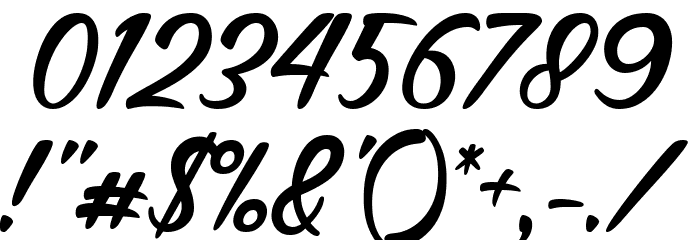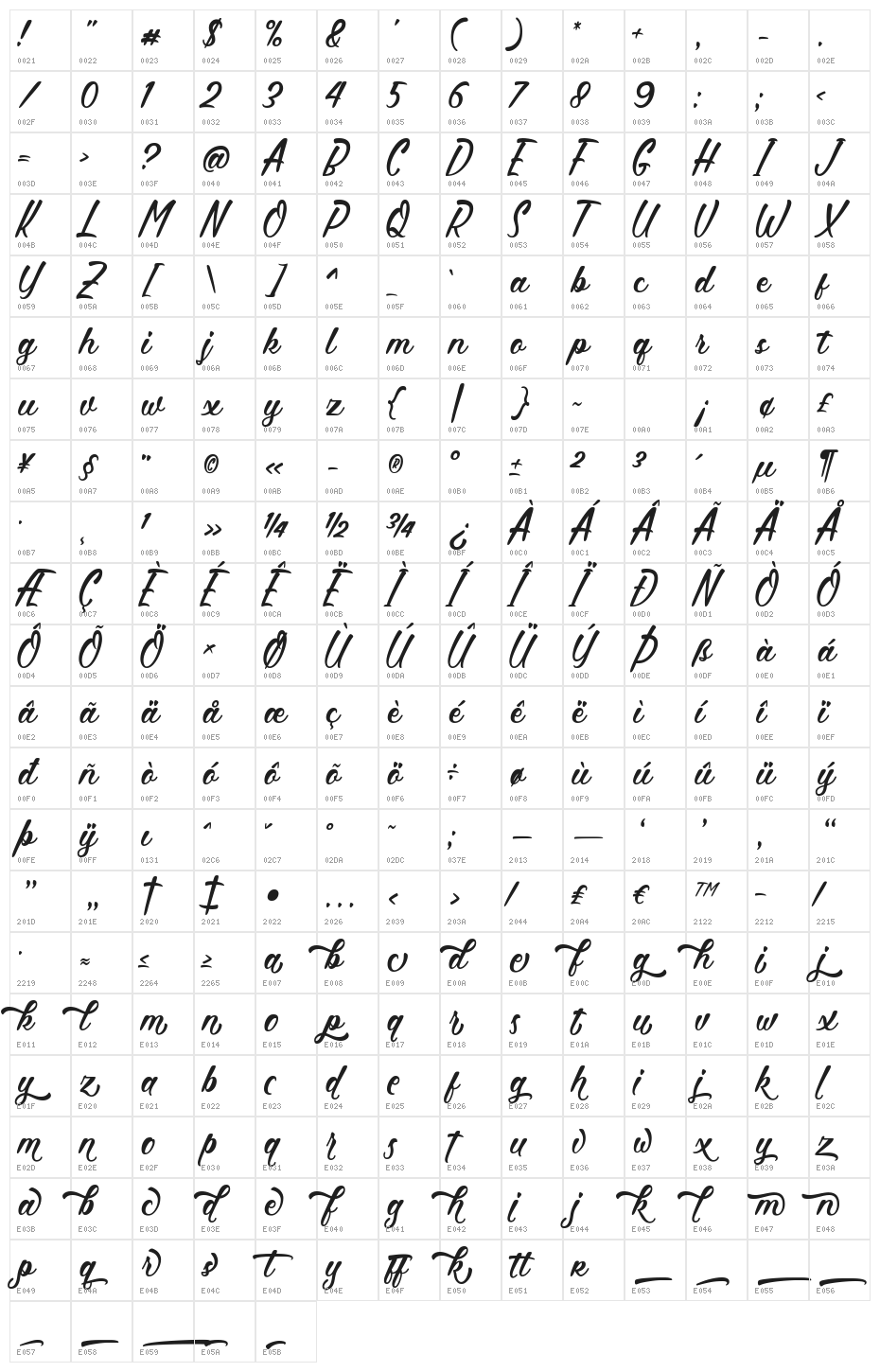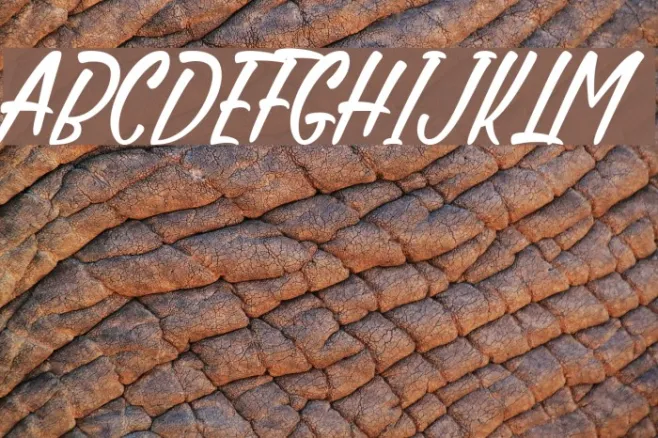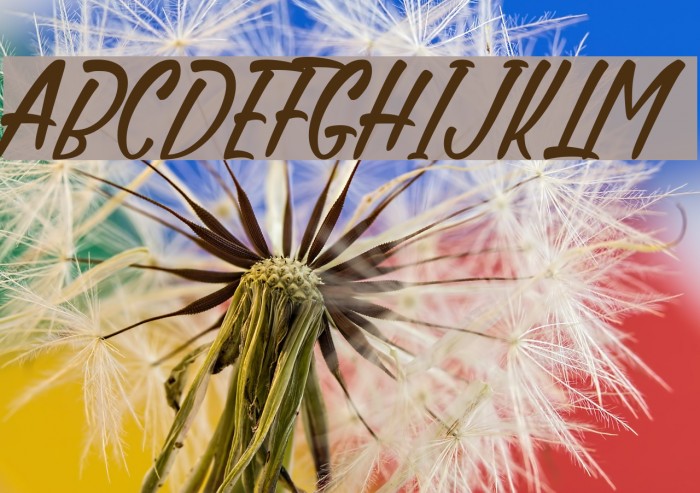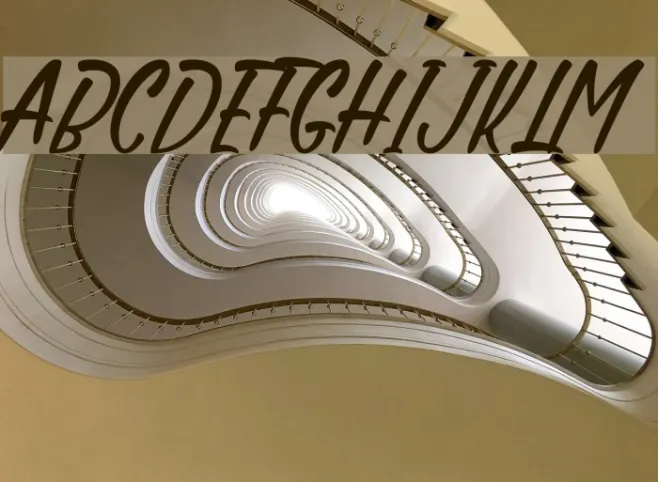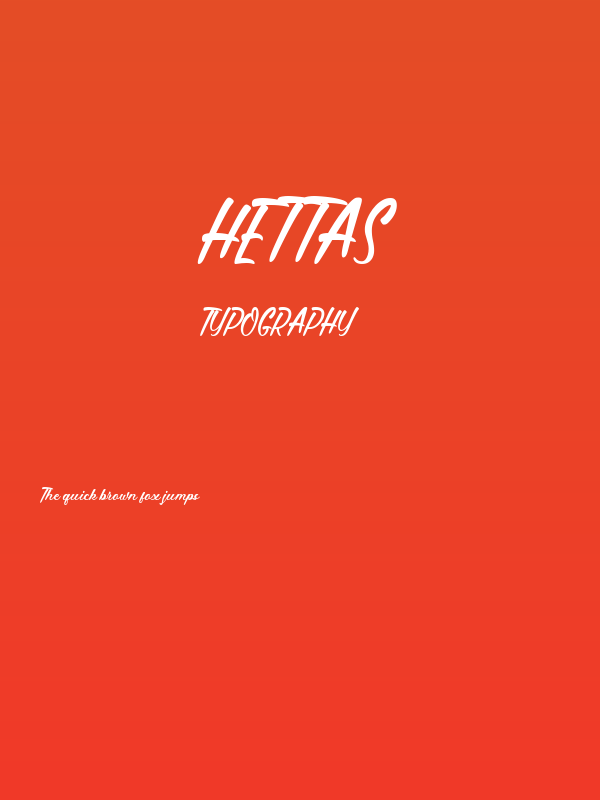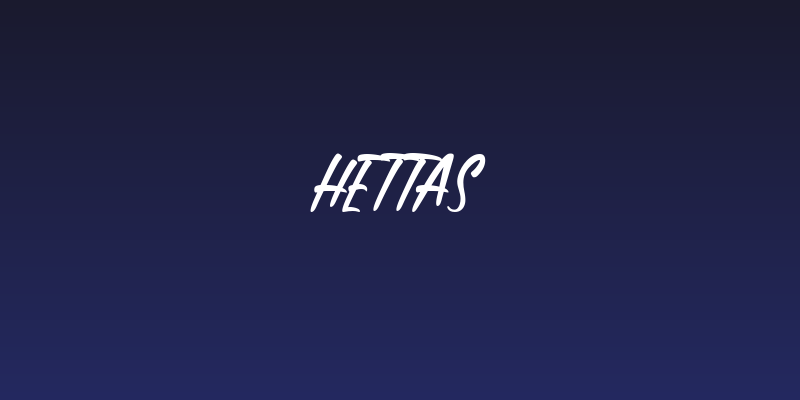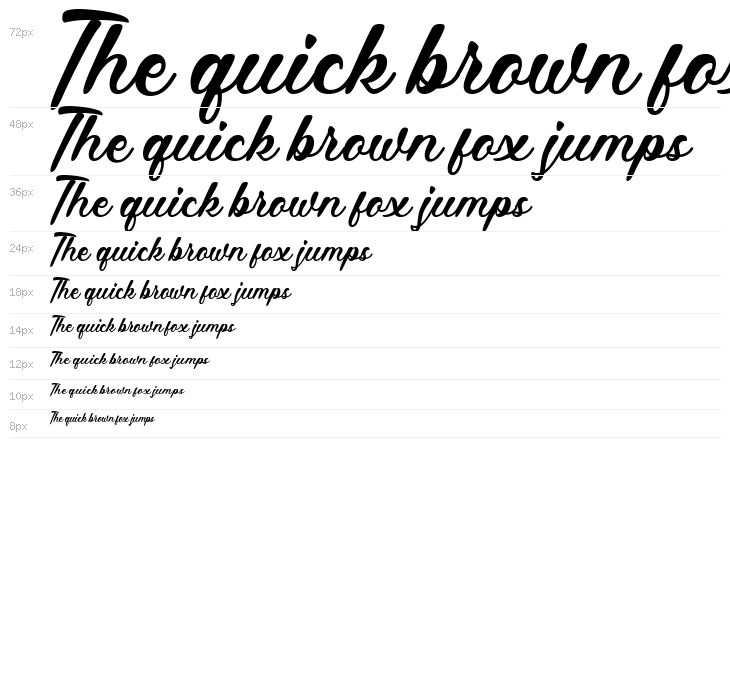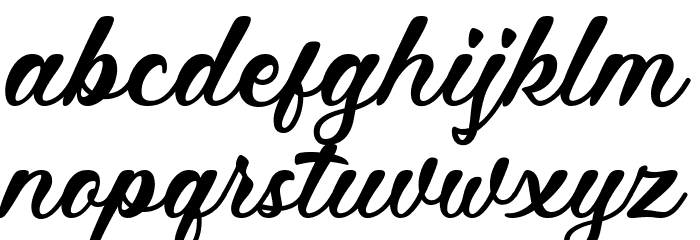
Hettas Font
Hettas Description
This font features a dynamic and flowing script style, characterized by its smooth, cursive letterforms that convey a sense of elegance and fluidity. The uppercase letters are bold and slightly slanted, giving a sense of movement and energy. The lowercase letters maintain a consistent flow, with rounded edges and a harmonious connection between characters. The numerals are clear and easy to read, maintaining the same cursive style. Special characters are thoughtfully designed to match the overall aesthetic, ensuring a cohesive look across all text. This font is ideal for projects that require a personal touch, such as invitations, greeting cards, or branding materials.
| Proposed Projects | Ideal for invitations, greeting cards, branding, and personal projects. |